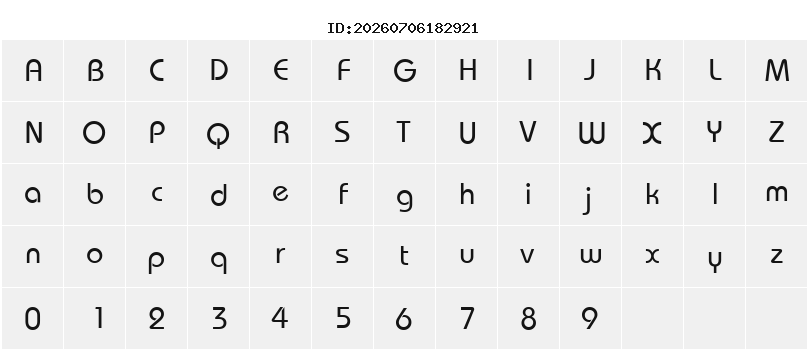
• Font Name: Dessau-Medium
• Designer: SoftMaker Software GmbH
About Dessau-Medium.ttf
Dessau-Medium.ttf is a modern, elegant sans-serif font designed for ultimate readability and visual harmony. Perfect for branding, headlines, web design, and print materials.